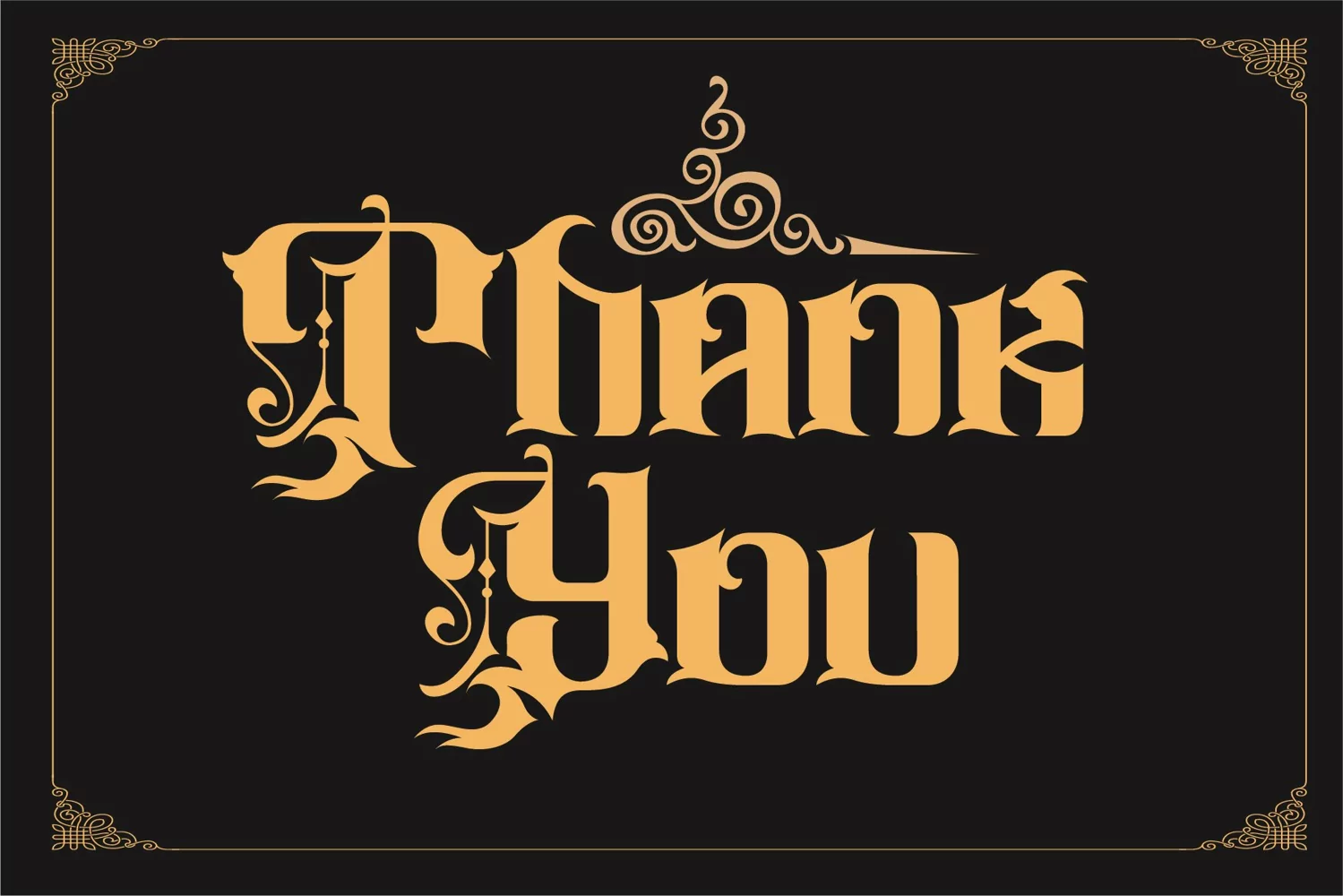
Baldwings - Decorative Vintage
If you looking for strong font for display or title this item is a great choice to make your design authentic.
Baldwings font has 182 character glyphs included the multilingual and alternate glyphs, the alternate glyphs will make your design more decorative.